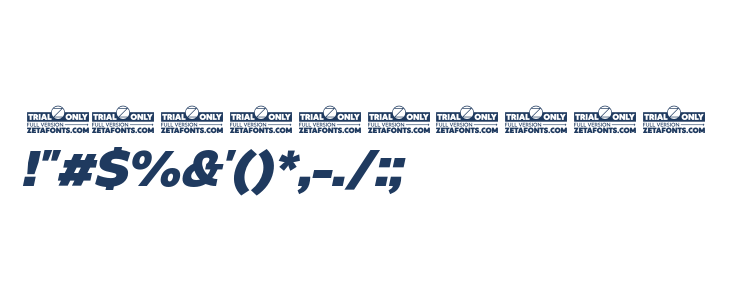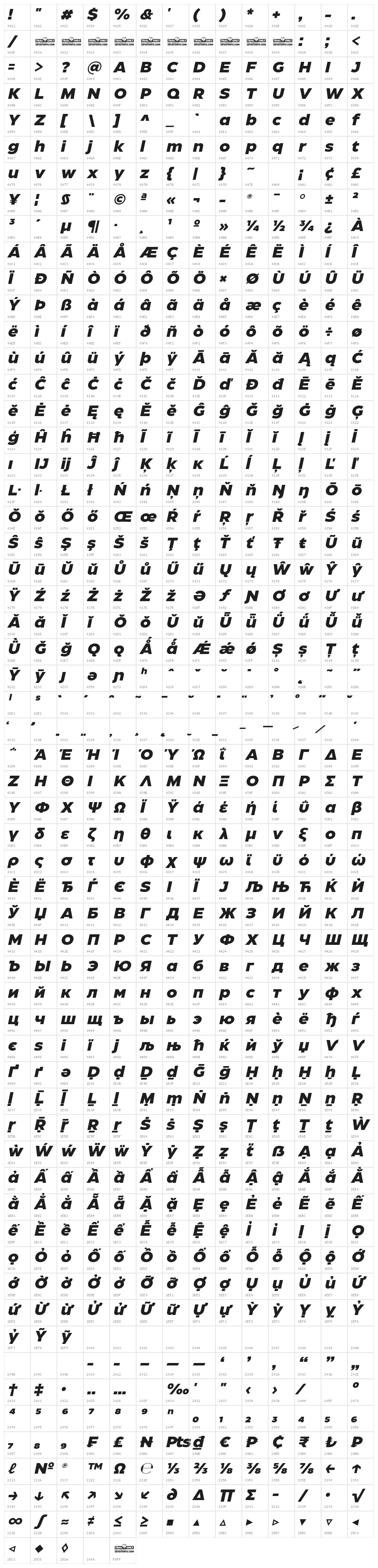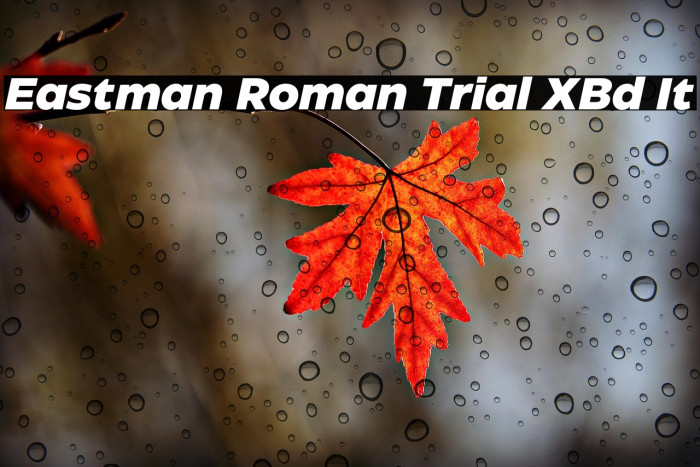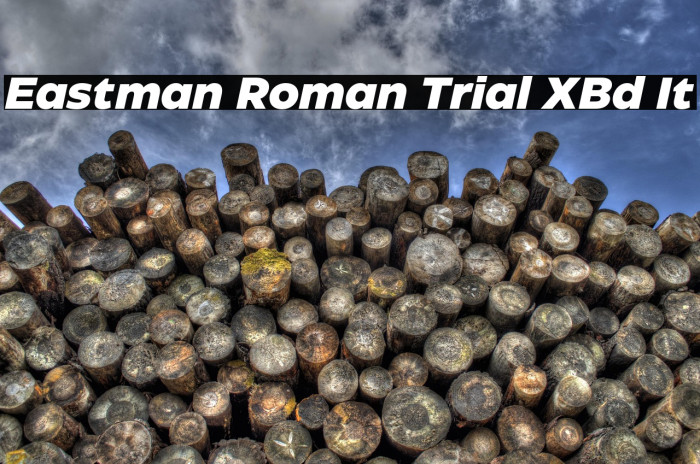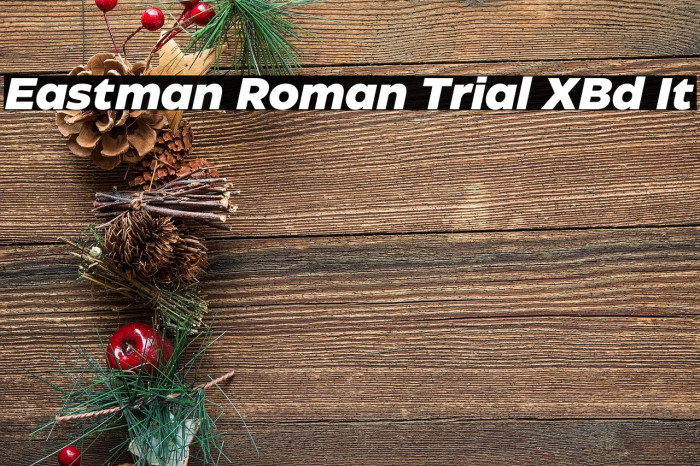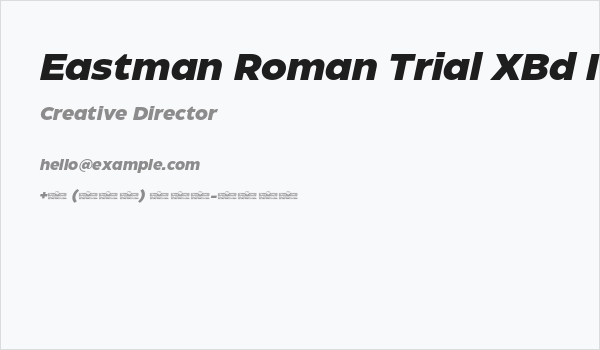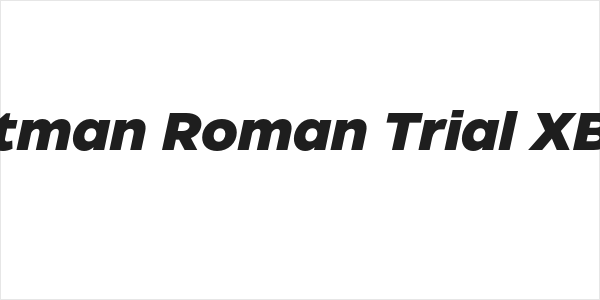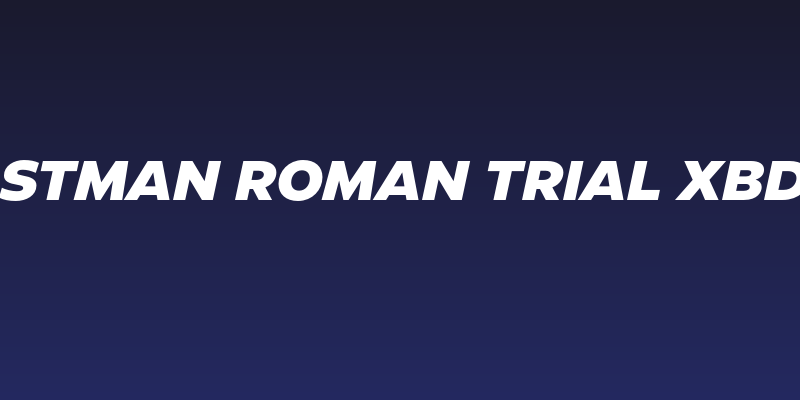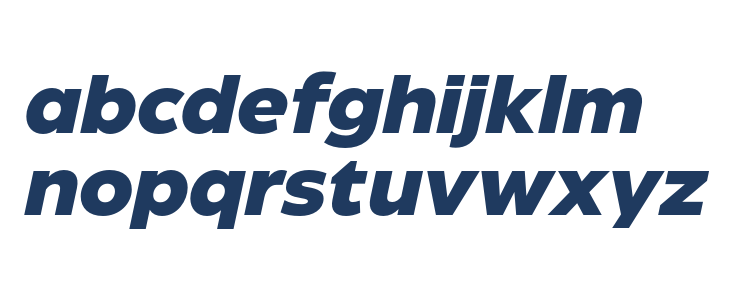
Eastman Roman Trial XBd It Font
Eastman Roman Trial XBd It Description
This font exhibits a bold and dynamic presence with its thick strokes and slightly italicized form. The uppercase letters are robust and commanding, while the lowercase letters maintain a consistent weight, offering a harmonious balance. The numerals are clear and legible, making them suitable for various applications. Special characters are well-defined, adding versatility to the font's use. The overall design is modern and impactful, making it ideal for attention-grabbing headlines and branding projects.